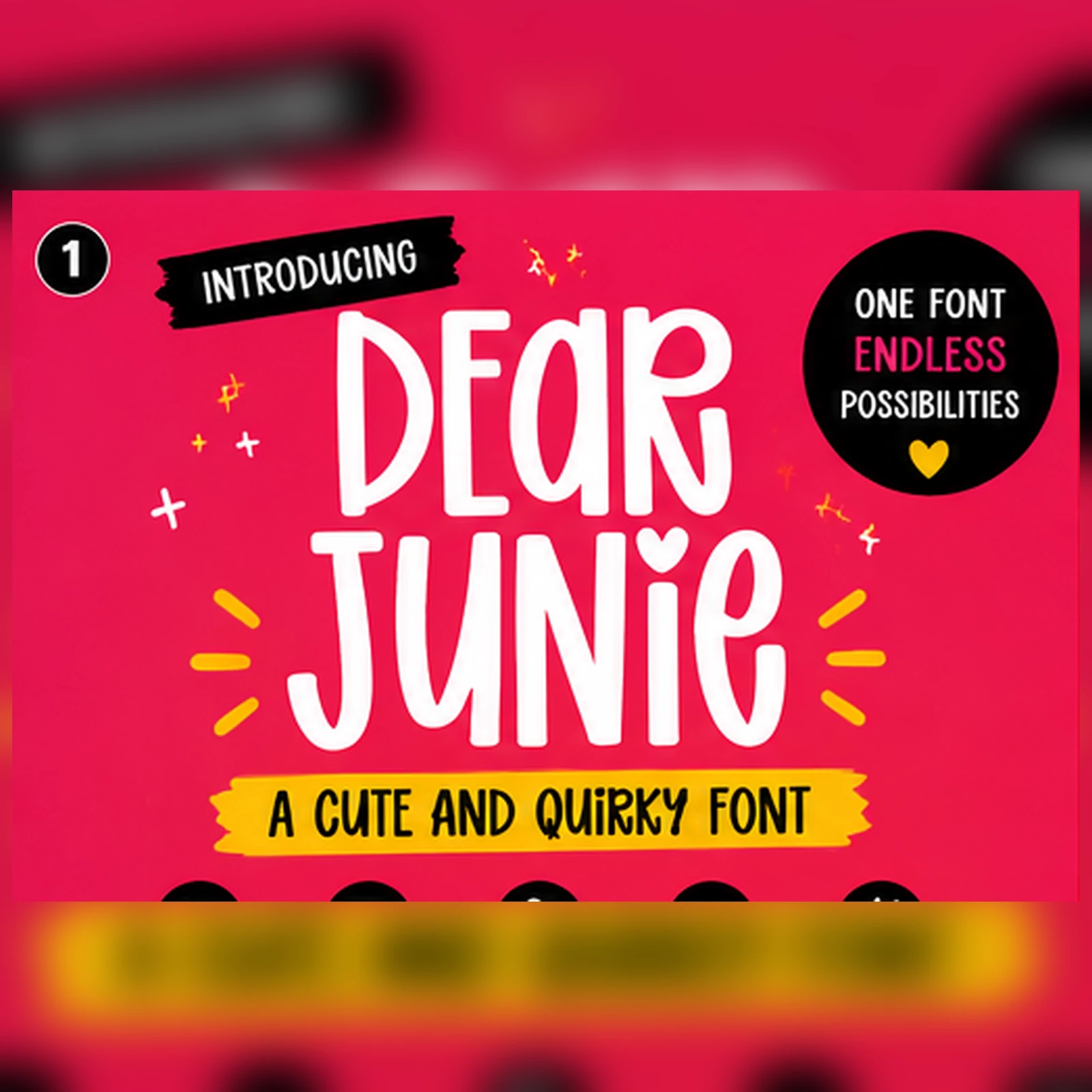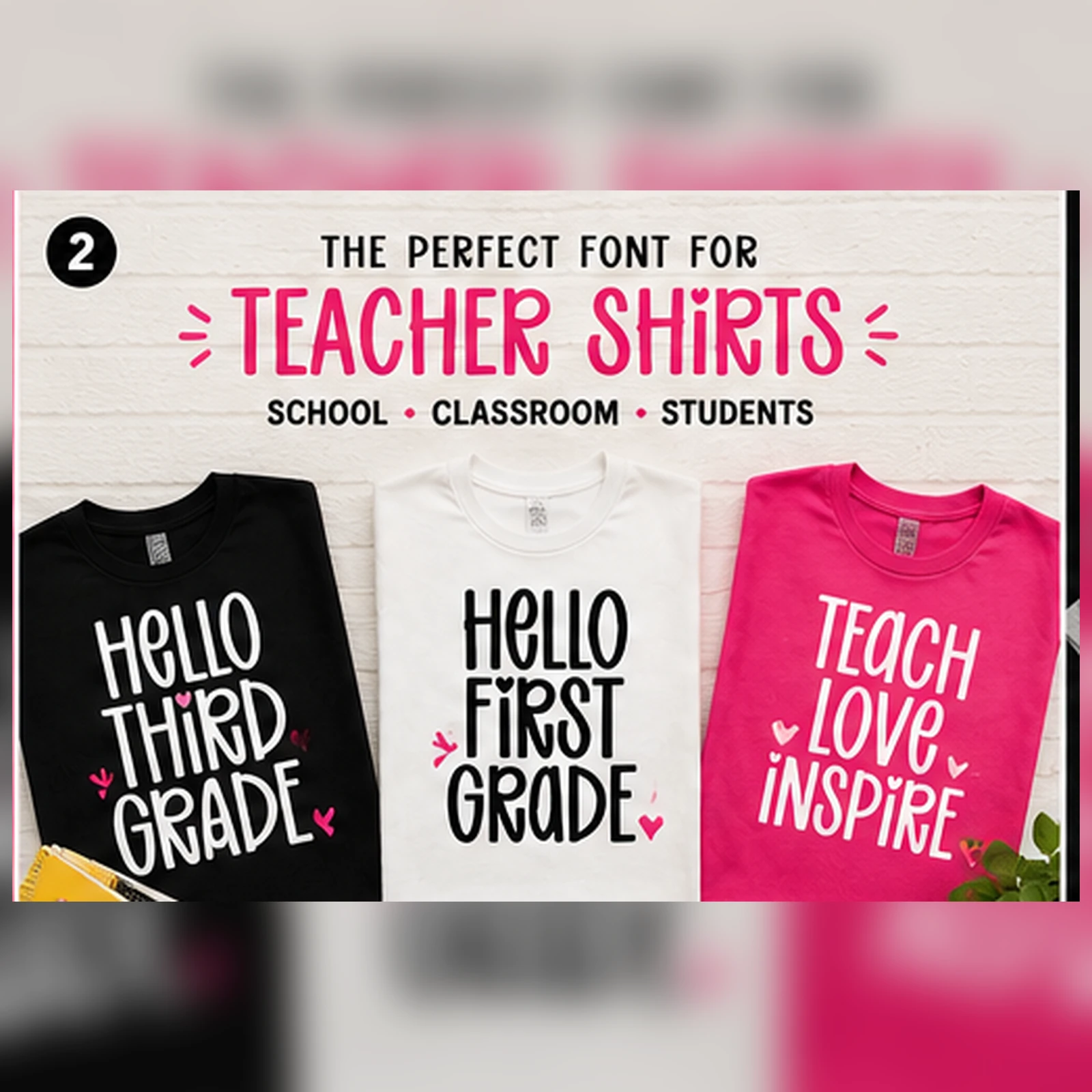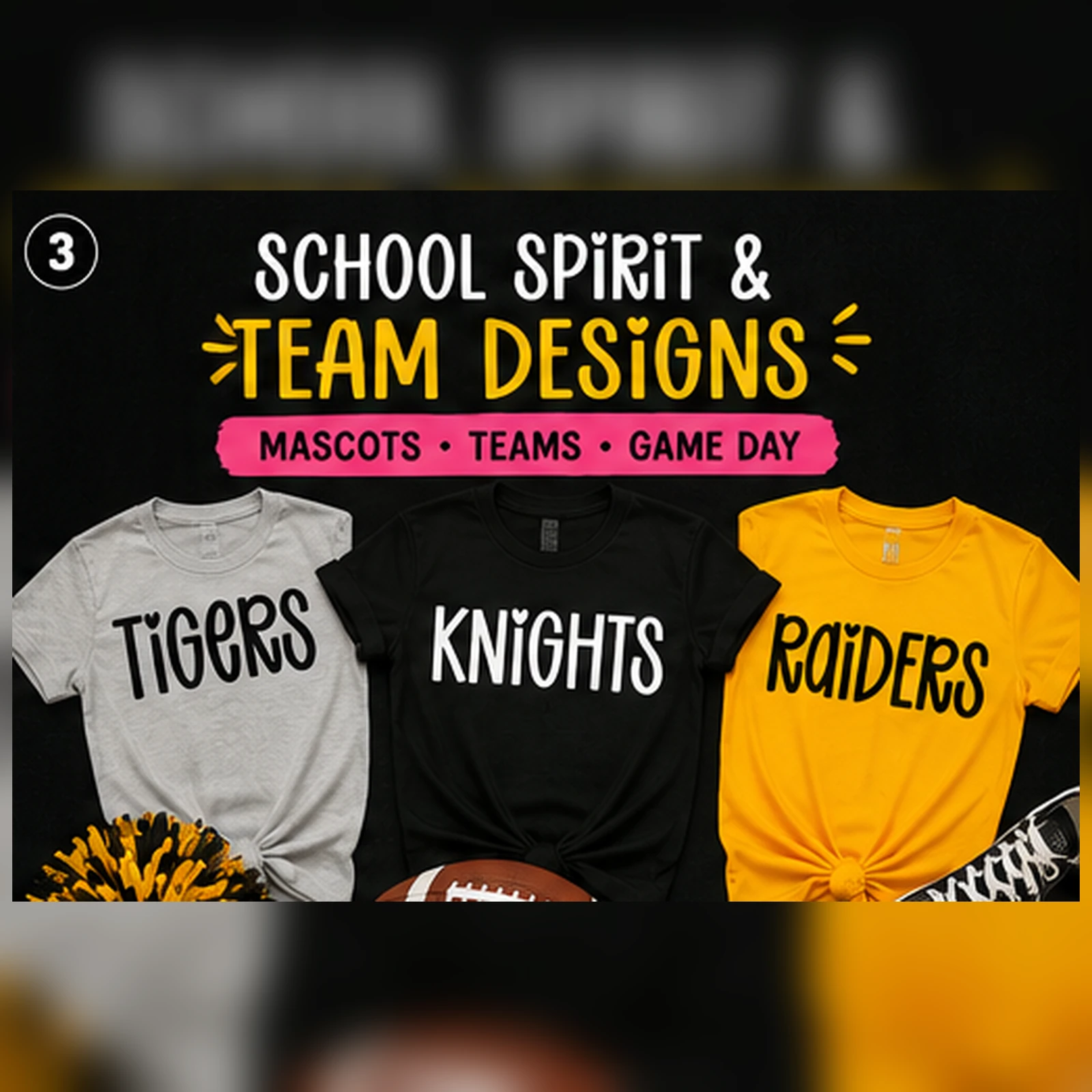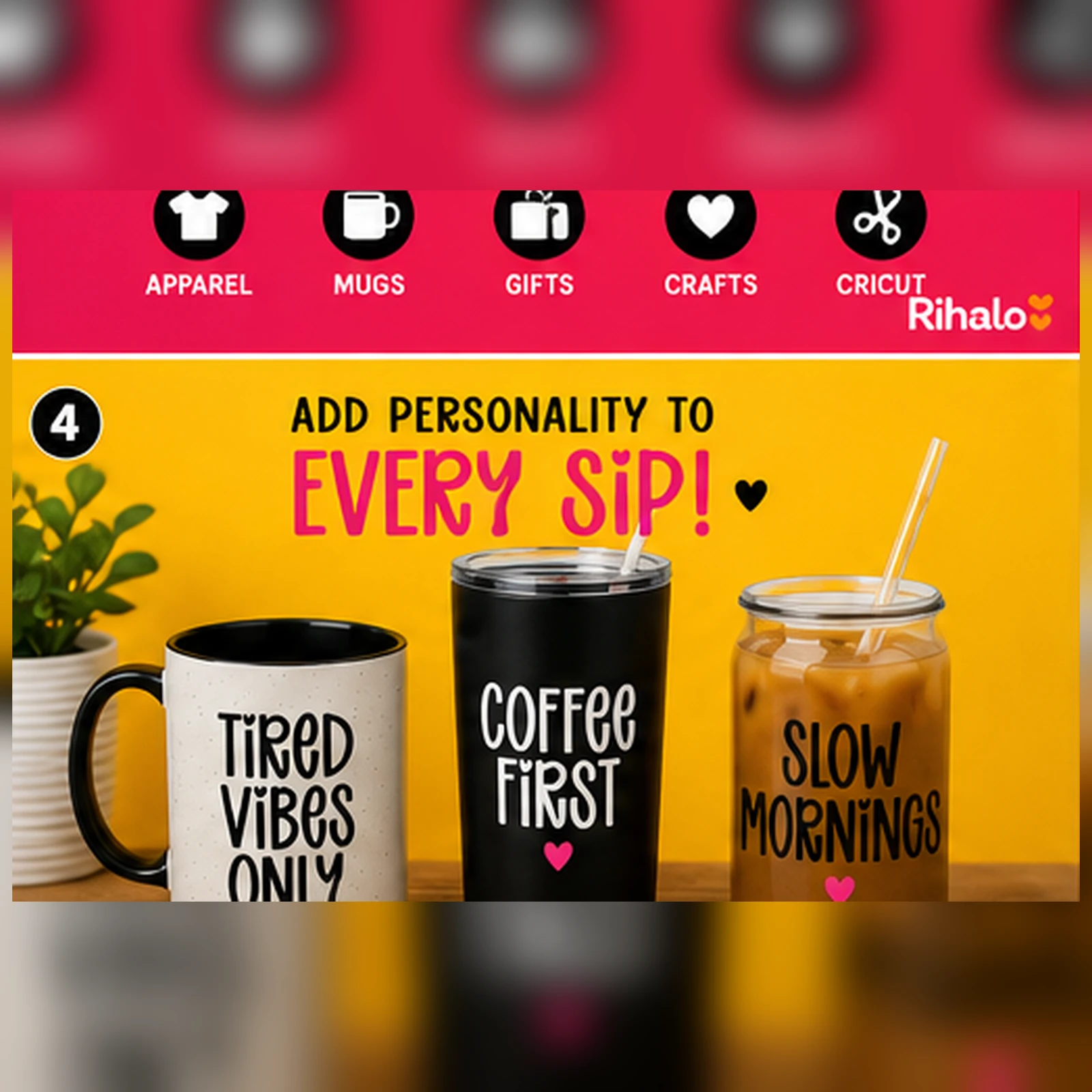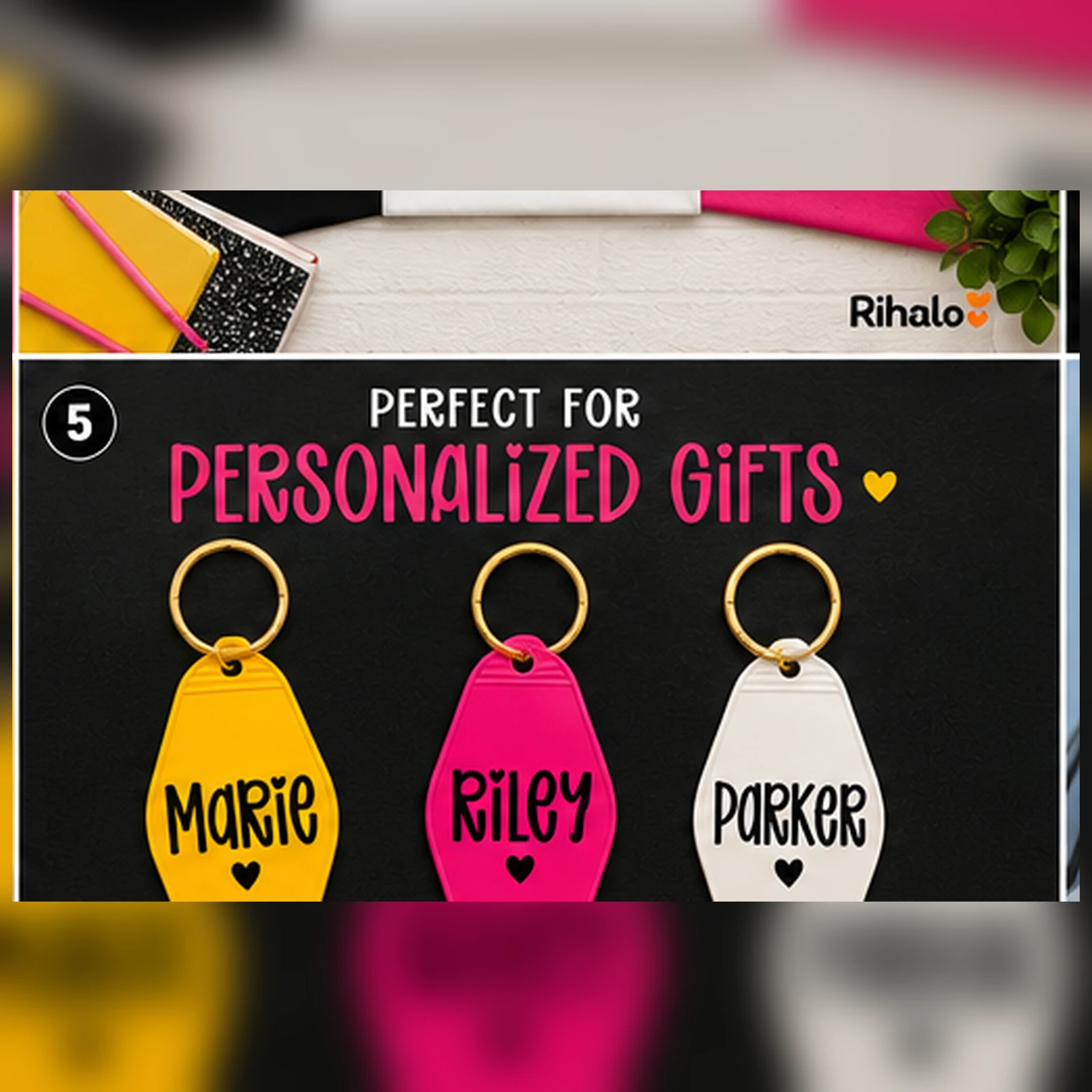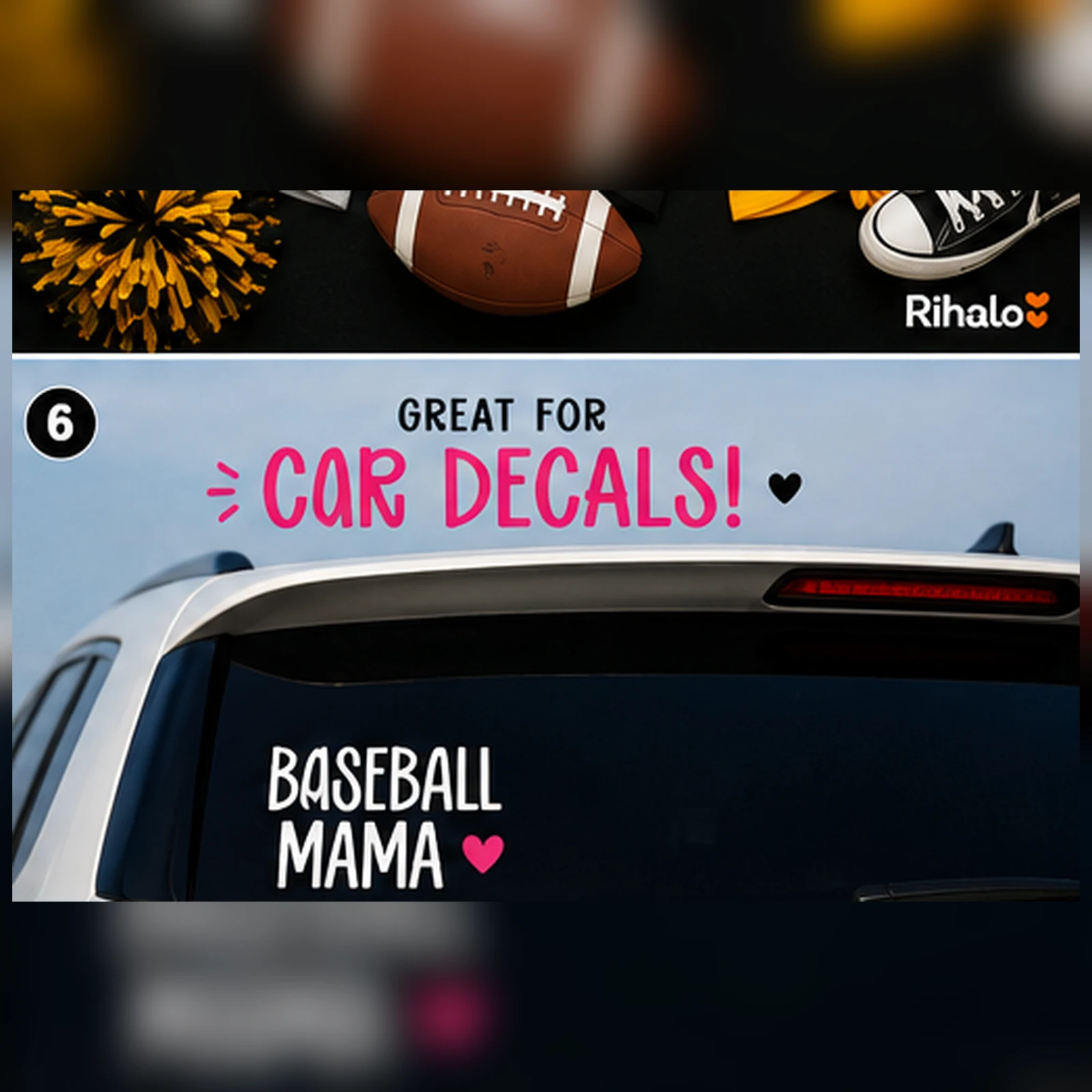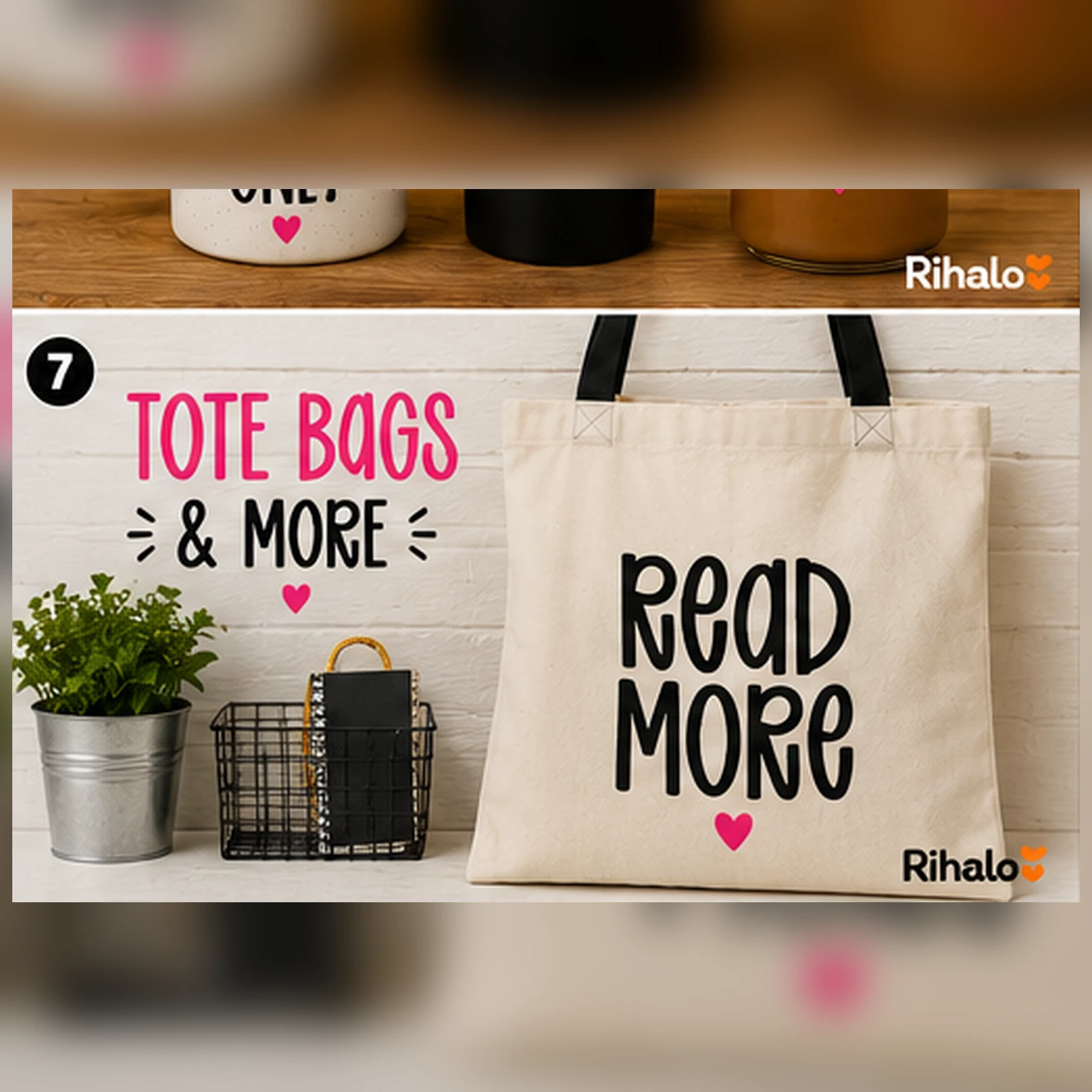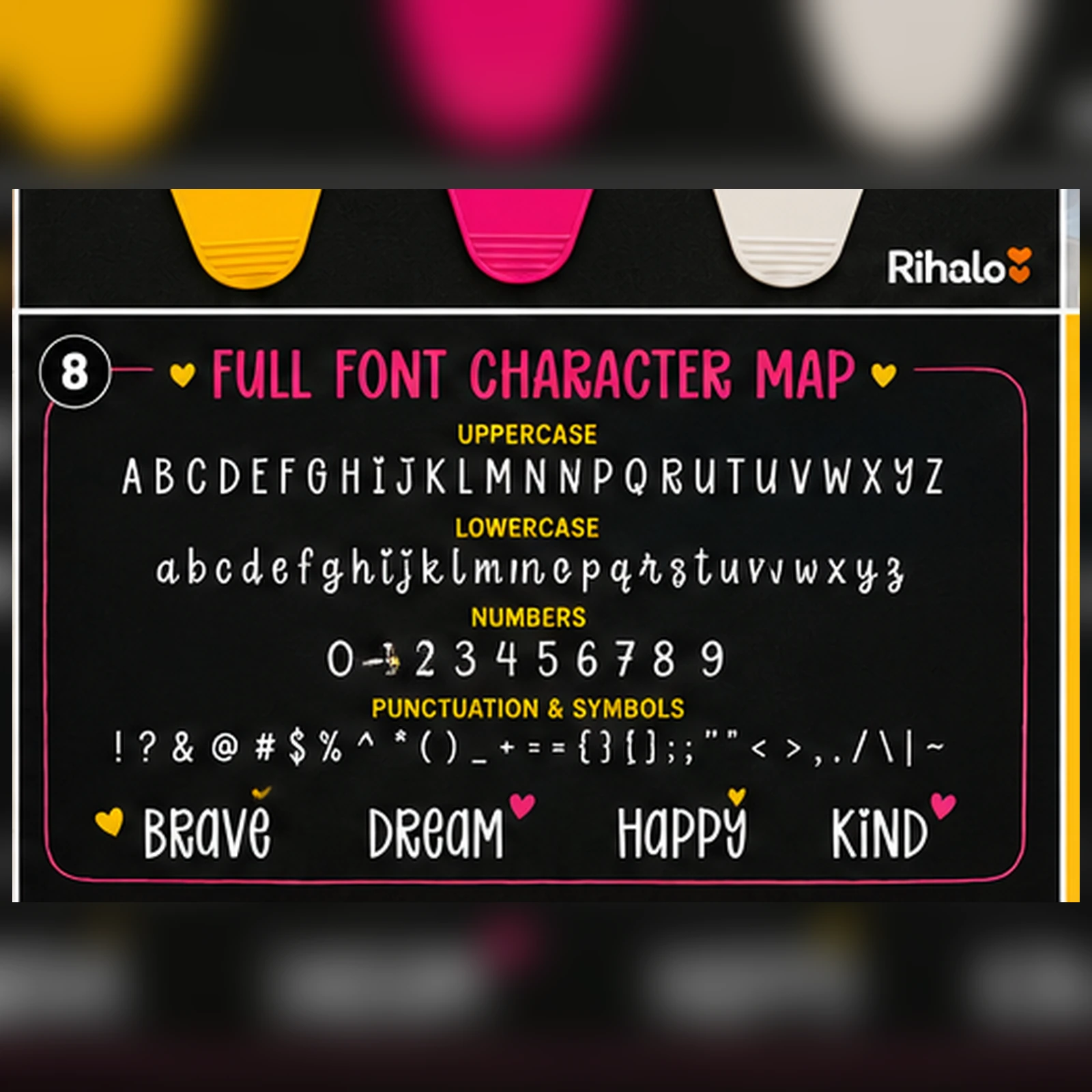
Dear Junie is a fun, tall and quirky display font designed for creators who want their words to stand out.
With playful letterforms, unexpected curves and a friendly handmade personality, Dear Junie works beautifully on everything from teacher shirts and school-spirit designs to personalized gifts, mugs, tote bags and vinyl decals.
It is especially useful for small businesses, craft sellers, print-on-demand creators and anyone making products that need bold typography with personality.
Made for Products People Notice
Dear Junie is perfect for creating:
- Teacher shirts
- Back-to-school designs
- Classroom apparel
- School spirit shirts
- Team and mascot designs
- Sports mom graphics
- T-shirts and sweatshirts
- Personalized name gifts
- Keychains
- Mugs and tumblers
- Tote bags
- Stickers
- Product labels
- Vinyl designs
- Car decals
- Craft projects
- Party and gift designs
- Small-business products
Use it for fun phrases, names, classroom graphics, school mascots, gift products and bold typographic designs.
Perfect for Teachers & School Spirit
Dear Junie’s tall letterforms work especially well in stacked layouts and short bold phrases that need to stay readable on shirts, bags and accessories.
Great for Personalized Products
Dear Junie works beautifully on keychains, mugs, tumblers, tote bags, labels, stickers and custom gifts. Its playful character gives personalized products a distinctive handmade feel.
Designed for Creative Sellers
If you create products for a small business, Dear Junie gives you one versatile font that can move across multiple product categories, from apparel and keychains to mugs, stickers, packaging and promotional graphics.